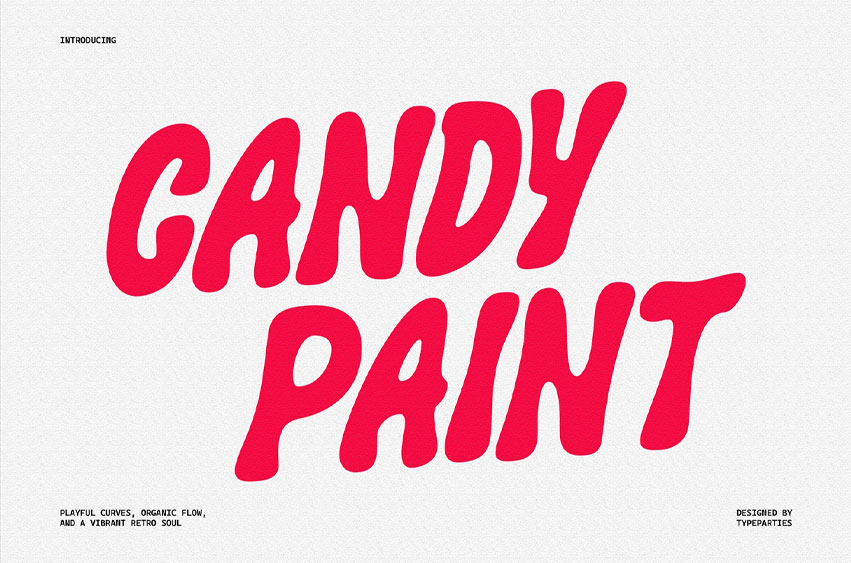
Candy Paint Font is a retro display font that feels like it just rolled out of a 1970s poster shop, dipped in bold colors and sweet nostalgia.
Inspired by the groovy aesthetics of bubble typography, this typeface blends playful organic curves with the scientific balance of rhythm and proportion, making it both eye-catching and functional.